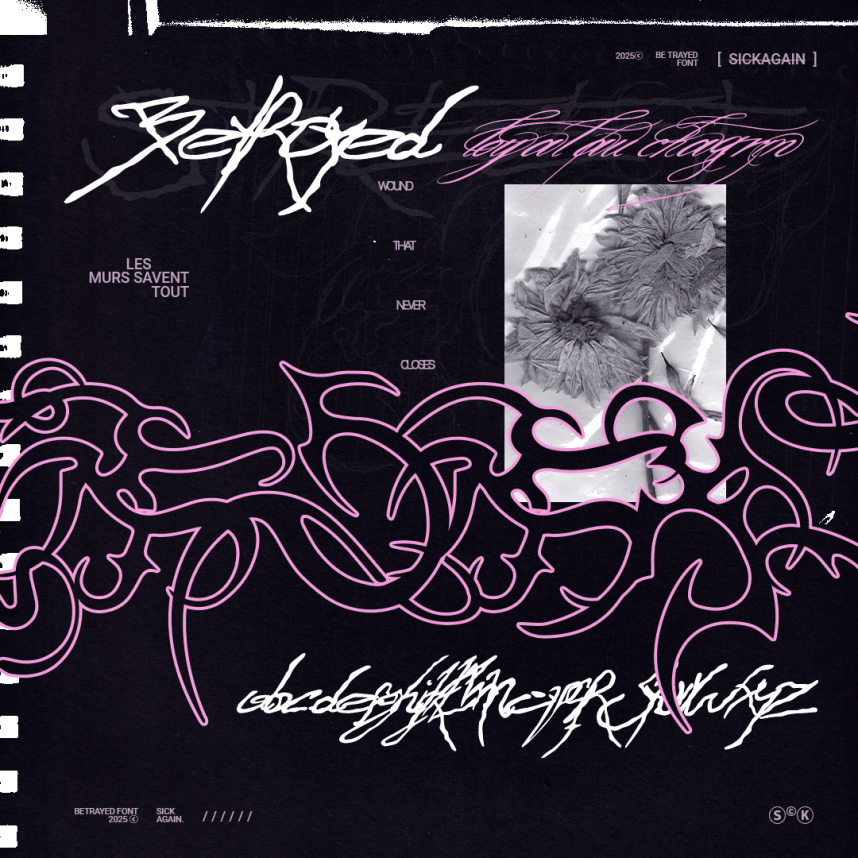
Betrayed – Sick Again Font
BETRAYED – Sick Again Font is a bold handwritten display font inspired by authentic graffiti tags and urban street art culture. Featuring expressive strokes, energetic letterforms, and a rebellious personality, this typeface is perfect for posters, album covers, branding, social media graphics, apparel designs, and creative projects that demand a raw and edgy aesthetic. BETRAYED includes uppercase and lowercase
Hi everyone, I bring you this new project called BETRAYED_FREE_FONT.
It’s just something I was experimenting with for a more natural, handwritten, tag-style street look.
I really like this font, it’s got that energy and those raw street vibes
that make it perfect for logotypes, streetwear artworks, or even titles for music tracks!